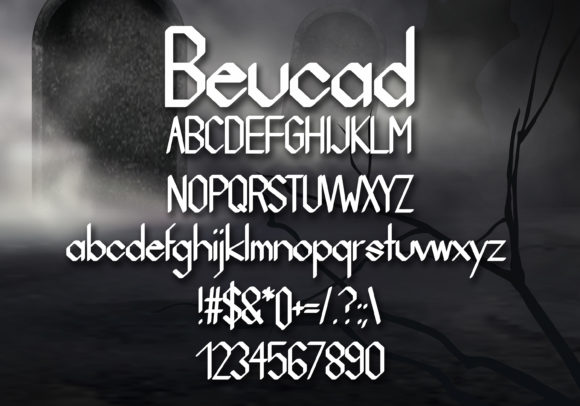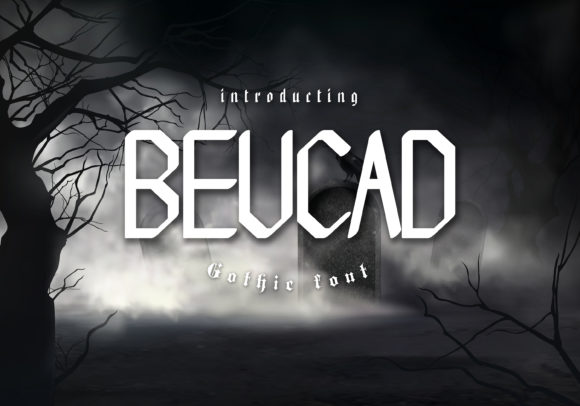
Introducing Beucad Font: The Ultimate Geometric Display Font for Designers and Crafters
In the world of design, fonts play a crucial role in conveying messages, expressing creativity, and setting the tone for a project. For designers, crafters, and digital artists, finding the perfect font can be a daunting task. However, if you’re looking for a unique and versatile font that can elevate your designs, look no further than Beucad Font. In this article, we’ll explore the features, benefits, and uses of Beucad, a geometrically styled display font that’s perfect for various design projects.
What is Beucad Font?
Beucad is a distinctive geometrically styled display font designed to add a touch of modernity and sophistication to your designs. Its unique geometric shape makes it stand out from traditional fonts, providing a fresh and contemporary look that’s sure to grab attention. Whether you’re working on a digital project, crafting, or creating presentations, Beucad is an excellent choice.
Key Features of Beucad Font
- Geometric Style: Beucad’s geometric design gives it a distinctive and modern look that’s perfect for designers and crafters who want to add a touch of sophistication to their work.
- Display Font: As a display font, Beucad is designed to make a statement. Its bold and eye-catching design makes it ideal for headlines, titles, and other prominent text elements.
- Versatility: Beucad is a versatile font that can be used for a wide range of design projects, from digital designs and presentations to crafting and greeting cards.
Benefits of Using Beucad Font
So, why should you choose Beucad for your design projects? Here are some benefits of using Beucad:
- Unique Look: Beucad’s geometric design ensures that your designs stand out from the crowd. Its unique look is sure to grab attention and leave a lasting impression.
- Ease of Use: Beucad is easy to use and pairs well with a variety of fonts, making it simple to incorporate into your designs.
- Time-Saving: With Beucad, you can create stunning designs quickly and efficiently. Its bold and eye-catching design means you can create attention-grabbing headlines and titles in no time.
Use Cases for Beucad Font
Beucad is a versatile font that can be used for various design projects. Here are some use cases:
- Digital Designing: Beucad is perfect for digital designers who want to add a touch of modernity to their designs. Use it for website headers, social media graphics, and more.
- Crafting: Beucad is ideal for crafters who want to create unique and eye-catching designs for their projects. Use it for scrapbooking, card making, and other paper crafts.
- Presentations: Beucad is a great choice for presentations, as its bold and eye-catching design ensures that your message gets across quickly and effectively.
- Greeting Cards Making: Beucad is perfect for creating stunning greeting cards for special occasions. Its unique design adds a touch of sophistication and elegance to your cards.
Tips for Using Beucad Font
Here are some tips for using Beucad effectively:
- Pair it with Other Fonts: Beucad pairs well with a variety of fonts. Experiment with different font combinations to create stunning designs.
- Use it for Headlines: Beucad is designed for headlines and titles. Use it to create attention-grabbing text elements that draw the reader’s eye.
- Experiment with Colors: Beucad looks great in a variety of colors. Experiment with different colors to find the perfect combination for your design.
In conclusion, Beucad Font is a unique and versatile geometrically styled display font that’s perfect for designers, crafters, and digital artists. Its modern design, ease of use, and versatility make it an excellent choice for various design projects. Whether you’re working on digital designs, crafting, presentations, or greeting cards, Beucad is sure to elevate your designs and leave a lasting impression.